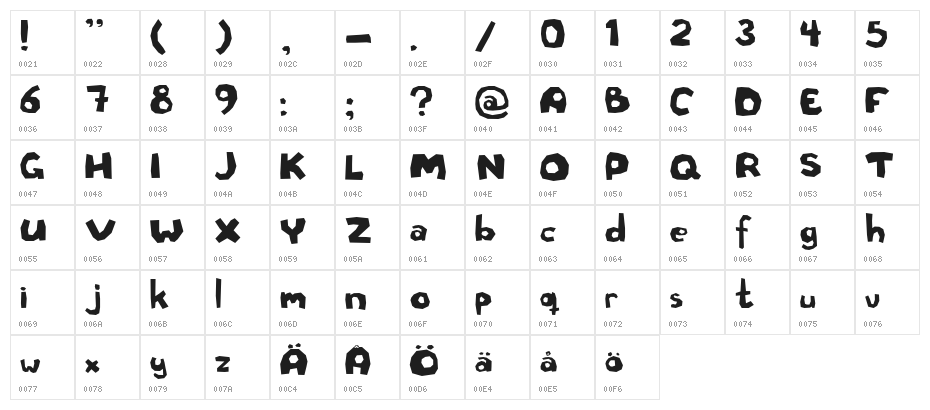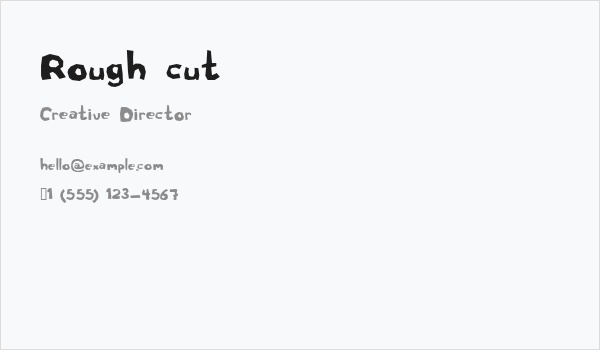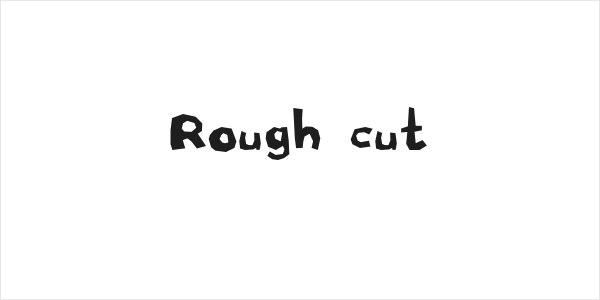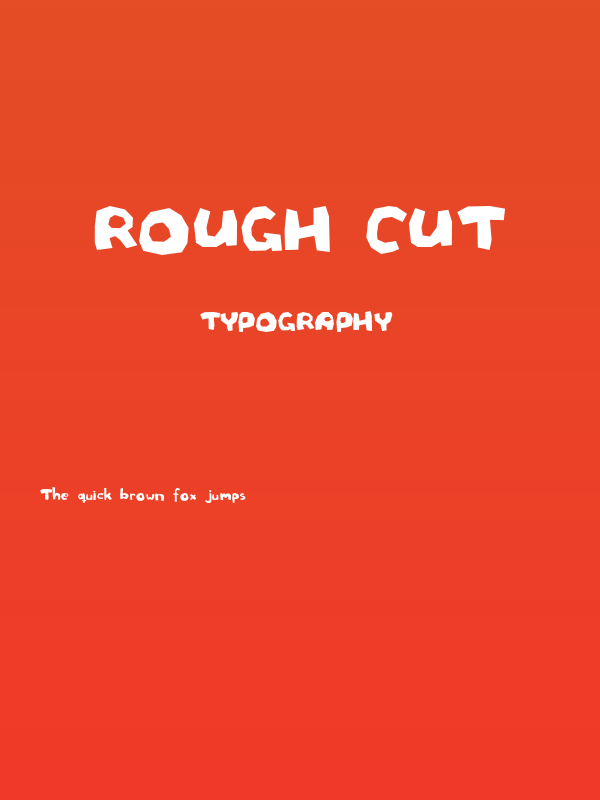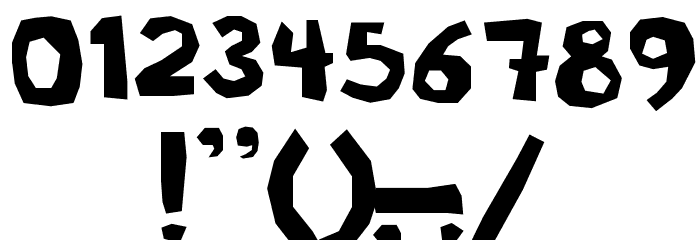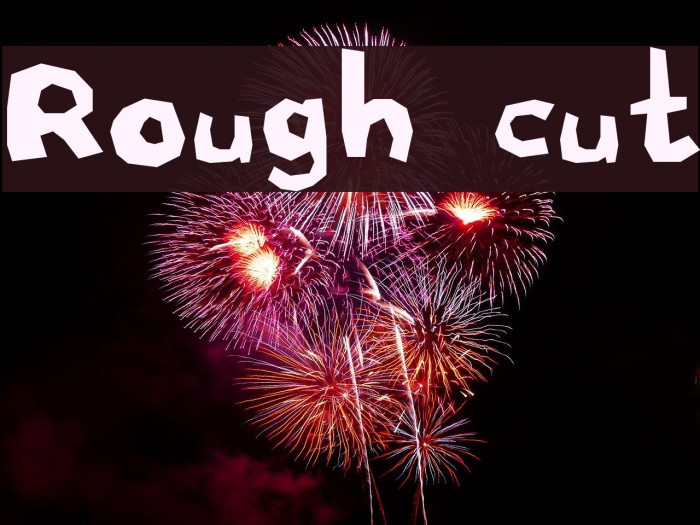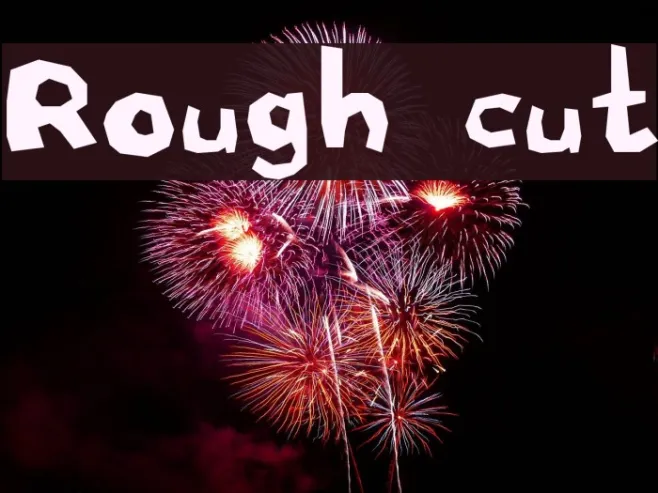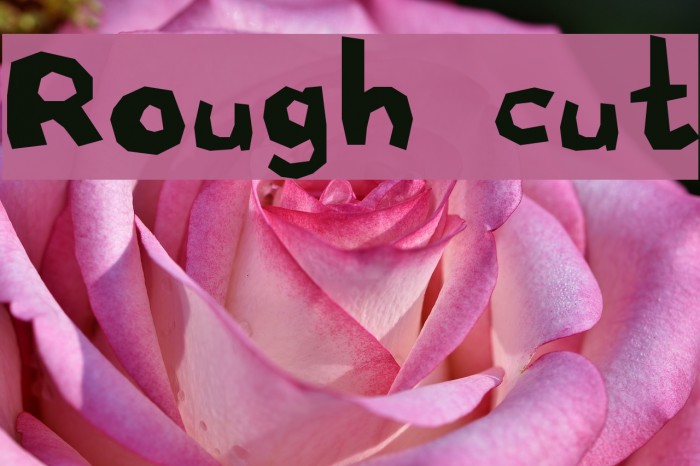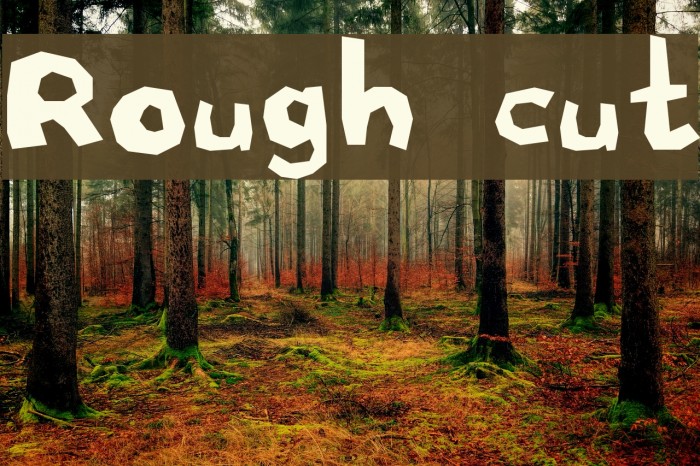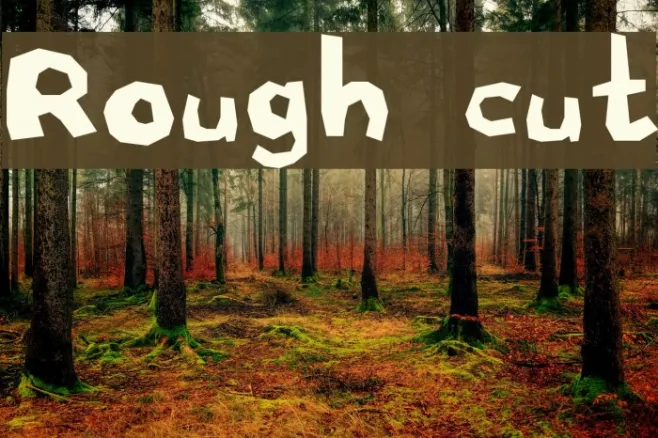
Rough cut Font
Rough cut Description
This font features a bold and rugged design, characterized by its uneven, jagged edges and a hand-cut appearance. The letters have a distinct, raw aesthetic that gives off a sense of energy and movement. The uppercase and lowercase letters maintain a consistent style, with sharp angles and irregular shapes that create a dynamic visual impact. Numbers and special characters follow the same design principles, ensuring a cohesive look across all elements. This font is ideal for projects that require a bold, attention-grabbing typeface with a unique, handcrafted feel.
| Proposed Projects | Ideal for posters, album covers, branding for edgy or alternative products, and any design needing a bold, handcrafted look. |